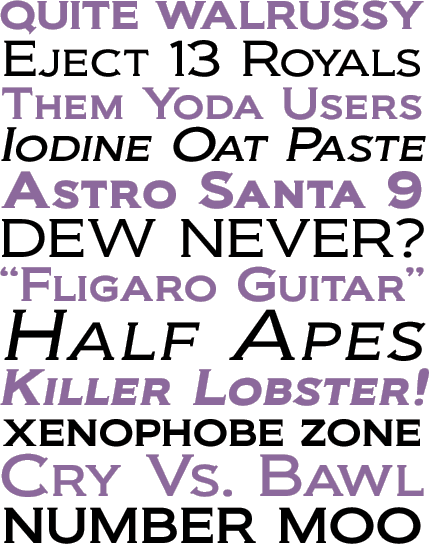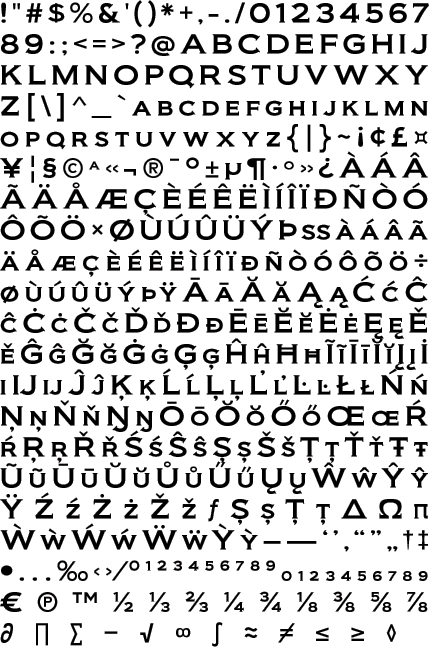
biondi
Inspired by Goudy’s original from 1905, Biondi maintains the classic wide and squarish shape that made Copperplate Gothic a design staple and moves it forward to the 21st Century. Biondi’s contemporary features: Beefed-up wedgelike serifs replace the hairline serifs which makes Biondi stand up to today’s low resolution advertising environment. Selective placement of serifs creates a cleaner-flowing line of text without sacrificing its understated seriousness.